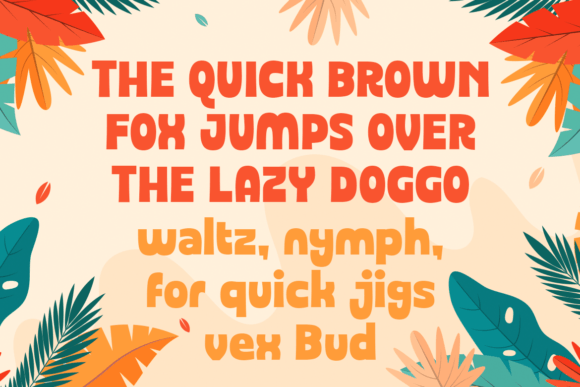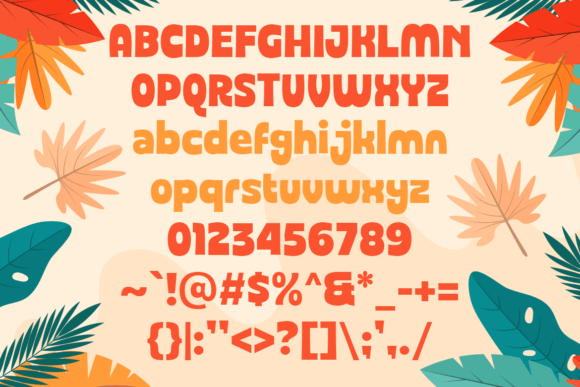
Introduction to Baby Roar Font
As a designer, there’s nothing quite like the thrill of discovering a new font that sparks creativity and sets your imagination ablaze. For me, that moment came when I stumbled upon the Baby Roar Font – a fun and whimsical display font that has since become a staple in my design arsenal. With its natural and friendly style, Baby Roar Font is the perfect addition to any creative project, from playful advertisements to charming invitations.
The Baby Roar Font is more than just a pretty face – it’s a valuable resource for designers looking to add a touch of personality to their designs. Its transparent background and high-quality design make it a versatile tool that can be used in a wide range of applications, from digital graphics to print materials. And the best part? It’s available for free download, making it an accessible design resource for designers of all levels.
Whether you’re working on a personal project or a high-stakes client brief, the Baby Roar Font is sure to bring a smile to your face and a touch of magic to your designs. In this article, we’ll delve into the world of Baby Roar Font and explore its many uses and benefits – so let’s dive in and discover the endless possibilities of this amazing font!
Key Features of Baby Roar Font
- Transparent background: This font features a transparent background, allowing users to easily layer it over other design elements and create unique, eye-catching graphics.
- High-quality design: The Baby Roar Font is designed with high-quality in mind, featuring crisp lines, smooth curves, and a professional aesthetic.
- Perfect for creative projects: This font is ideal for use in creative projects, such as branding, advertising, and editorial design, where a playful and modern look is desired.
- Resolution: The font is designed to be resolution-independent, ensuring that it looks great at any size or resolution.
- Unique characteristics: The Baby Roar Font features a bold, playful style with a mix of uppercase and lowercase letters, making it perfect for adding a touch of whimsy to any design project.
Honest Review: Baby Roar Font
As a designer, I was excited to try out the Baby Roar Font for a recent creative project. I’ve got to say, it did not disappoint. This font is perfect for any design that needs a playful, energetic feel.
- ✨ High quality: The Baby Roar Font is beautifully designed with smooth lines and a unique character set.
- ✨ Transparent background: The font’s transparent background allows for easy customization and versatility in design projects.
- ⚠️ Limited font styles: The Baby Roar Font only comes in a few styles, which might not be suitable for more complex design projects.
- ⚠️ Not ideal for professional documents: Due to its playful nature, this font might not be the best choice for formal or professional documents.
Overall, I’m really impressed with the Baby Roar Font. It’s perfect for creative projects, social media graphics, or any design that needs a fun, energetic feel. If you’re looking for a high-quality, free font to add some personality to your designs, the Baby Roar Font is definitely worth checking out.
The Baby Roar Font is a unique and playful design resource that can elevate any creative project. This high-quality font is available for free download and features a transparent background, making it perfect for adding a touch of whimsy to your designs.
To get the most out of the Baby Roar Font, experiment with different font sizes, colors, and styles to create unique and eye-catching designs. You can also combine the font with other design elements, such as images and graphics, to create a cohesive and engaging visual message.